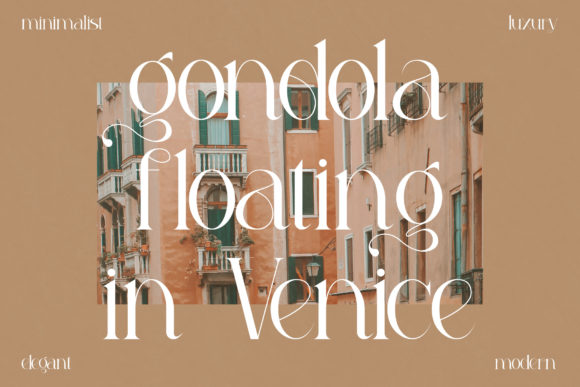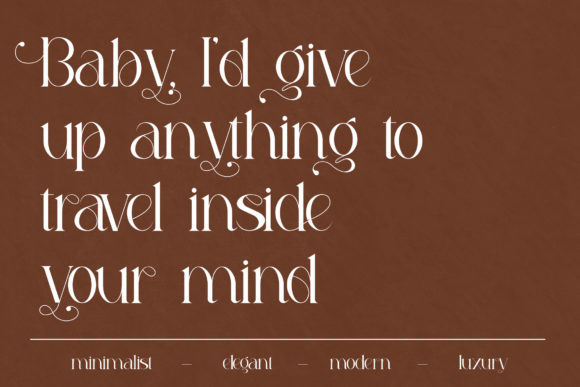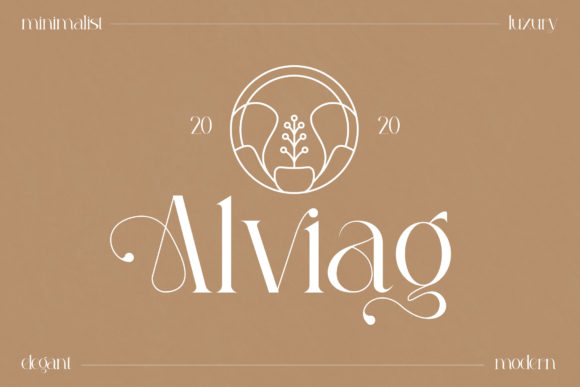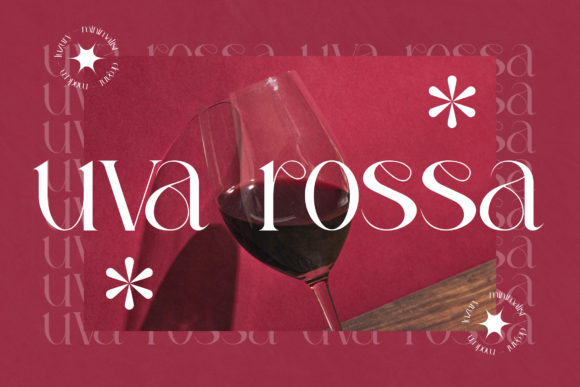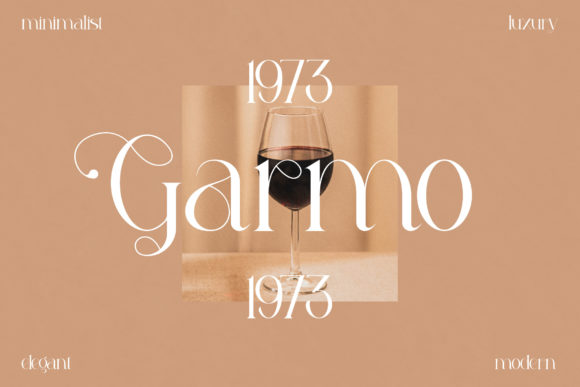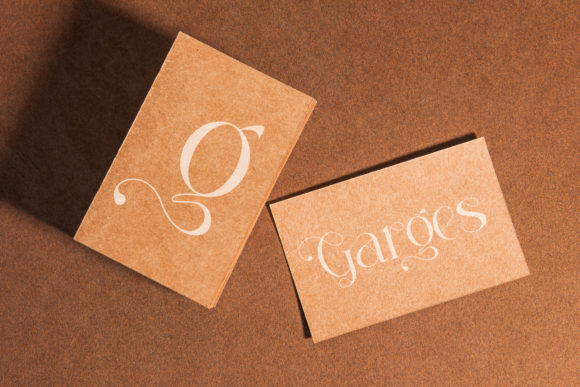
Introduction to Garges Font
Do you remember the thrill of browsing through a design resource and stumbling upon the perfect font that elevates your creative project? For designers, finding that one special font can be a game-changer. It’s the moment when your idea starts to take shape, and you can almost visualize the final product. For many, that moment came with the discovery of the Garges Font – a modern and classy serif font that exudes elegance and sophistication.
Whether you’re working on a luxury logo, a book or movie title design, or a fashion brand, the Garges Font is the perfect design resource to bring your vision to life. With its unique style and modern look, this high-quality font is sure to make your project stand out from the crowd. And the best part? It’s available for free download, complete with a transparent background, making it a versatile and convenient addition to your design arsenal.
Key Features of Garges Font
- Designed with a unique and modern aesthetic, perfect for adding a touch of sophistication to your work
Honest Review: Garges Font
I recently came across the Garges Font, and I must say, it’s been a great addition to my design resources. This free download offers high-quality typography that’s perfect for creative projects.
- What works well: ✨ The Garges Font is incredibly versatile and can be used for a wide range of design projects, from digital to print. Its sleek and modern design makes it a great choice for anyone looking to add a touch of sophistication to their work.
- What works well: ✨ The font also features a transparent background, making it easy to layer over other design elements and create a cohesive look.
- Limitations: ⚠️ The font doesn’t come in as many weights as I would have liked, which can limit its use in certain design projects.
- Limitations: ⚠️ The font’s italics can be a bit wonky at times, which can be frustrating for designers who rely on precise typography.
Overall, I’m impressed with the Garges Font. Its high quality and versatility make it a great addition to any designer’s toolkit. While it may have some limitations, it’s definitely worth checking out for anyone looking for a reliable and stylish font.
Garges Font
Garges Font is a high-quality design resource perfect for creative projects. It’s free to download and offers a transparent background, making it ideal for various design applications.
Tips for Getting the Most Out of Garges Font
To get the most out of Garges Font, experiment with different font sizes, colors, and combinations with other design elements. You can also use the font in conjunction with other design resources to create a unique and creative visual identity.
Garges Font is ideal for a variety of creative projects, including logos, brochures, business cards, and social media graphics. Its transparent background and high-quality design make it a versatile and effective design resource.
Q: Is the Garges Font suitable for high-quality design projects?
Yes, the Garges Font is designed to be a high-quality design resource, making it perfect for creative projects that require attention to detail. With its clean and elegant design, the Garges Font is suitable for a wide range of applications, from branding and advertising to digital products and publishing.